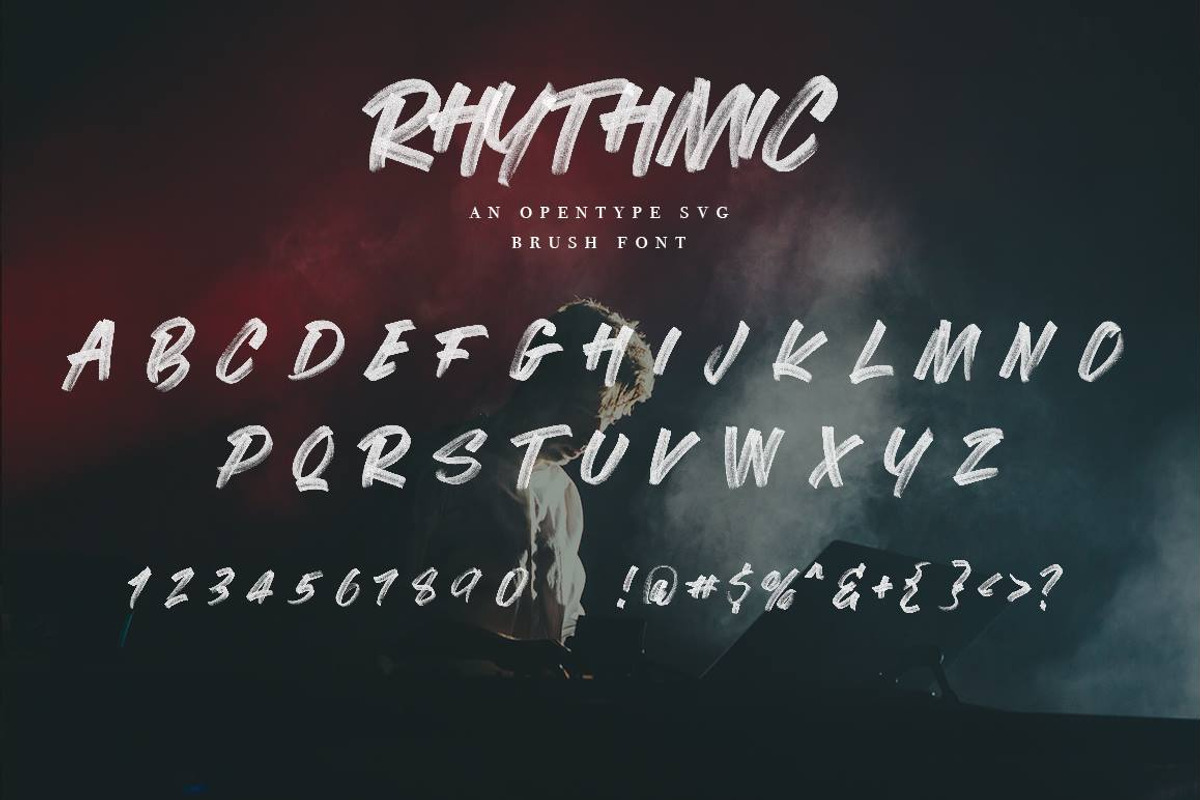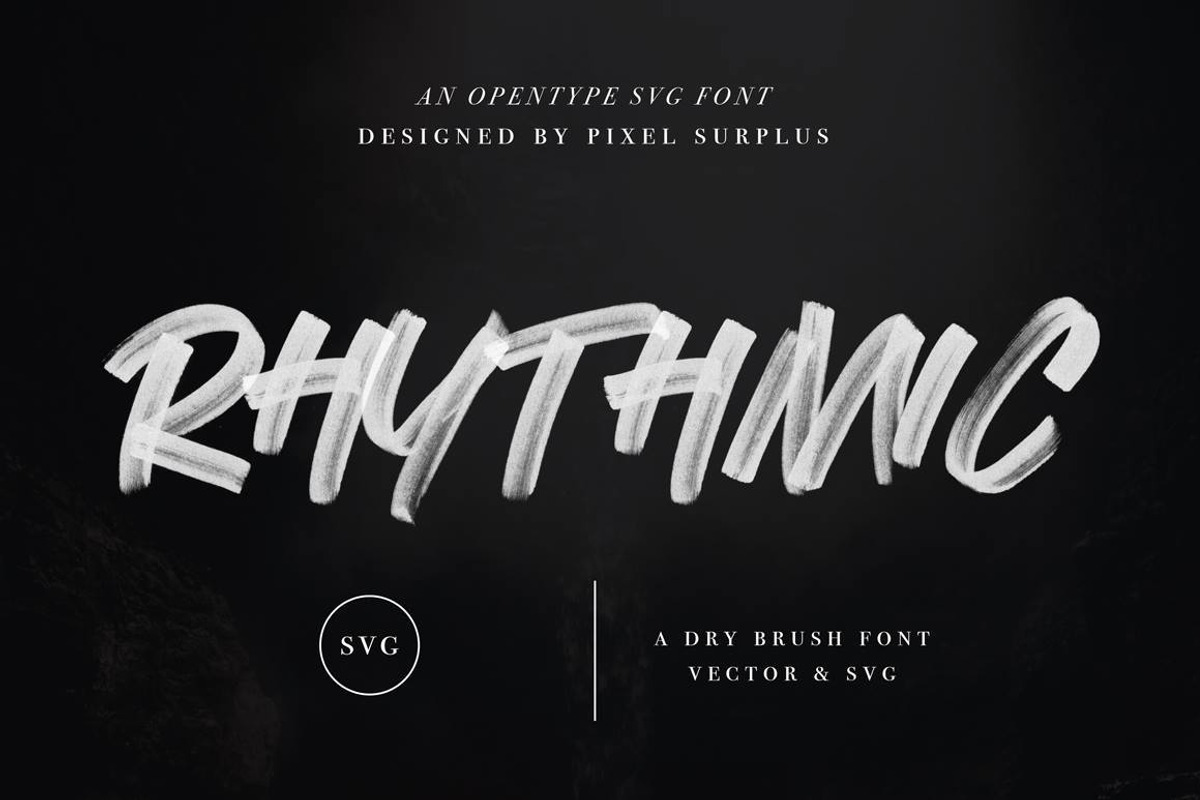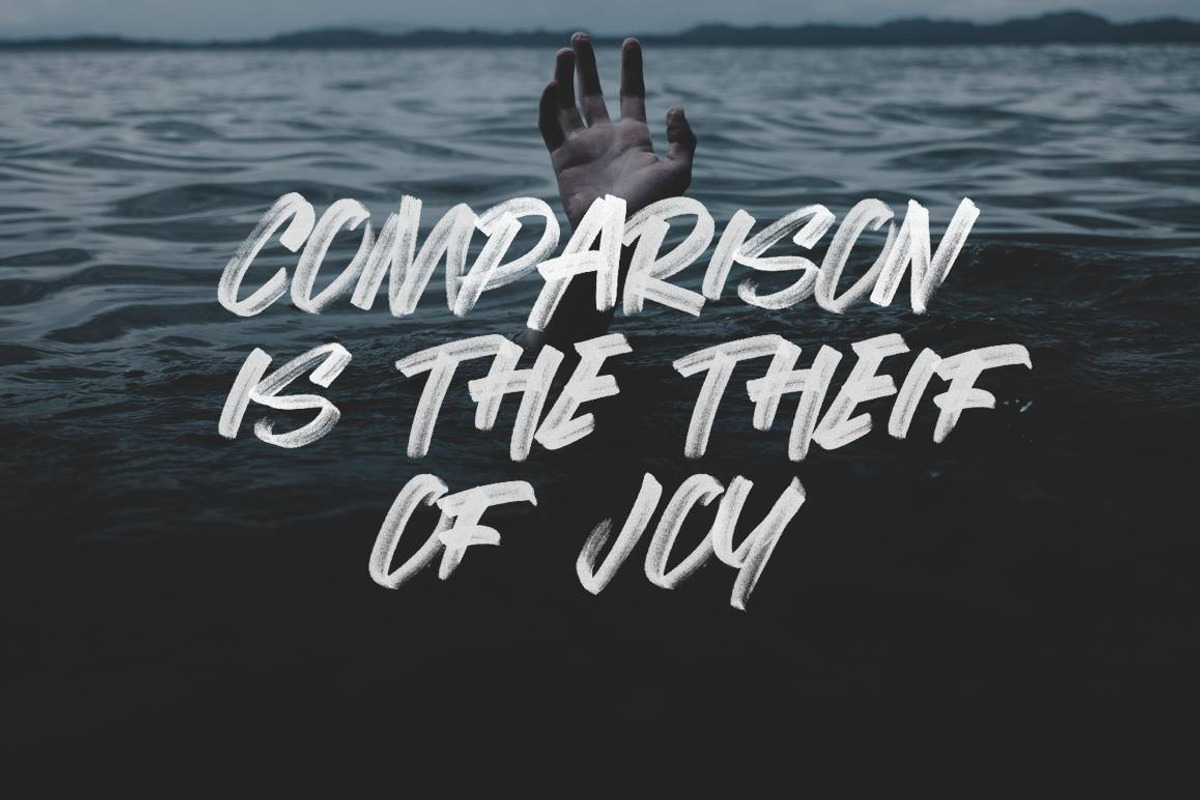
Rhythmic - SVG Font
Rhythmic SVG is an all-caps hand drawn brush marker font. It retains the natural transparency created by the brush marker resulting in a hyper realistic look.
Rhythmic - SVG Font by Surplus Type Co fits naturally into Branding, posters, packaging, typography.